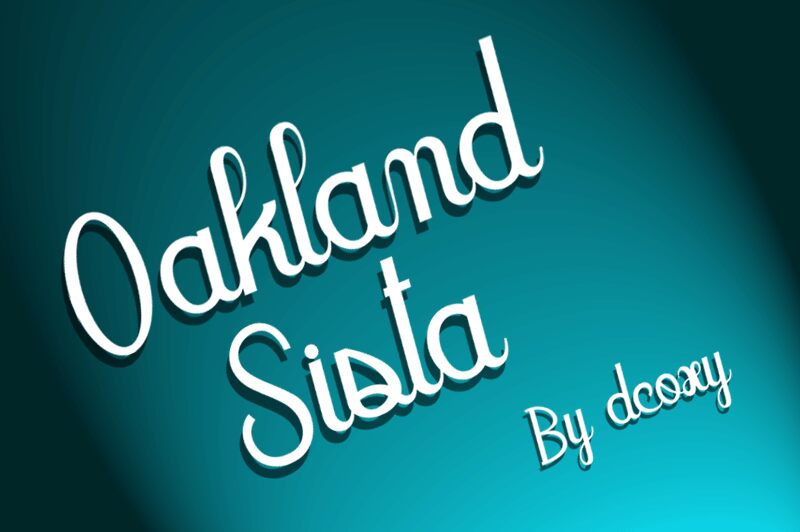
Oakland Sista
Oakland Sista is a captivating handwritten font crafted by dcoxy Medina Gregory. Inspired by the vibrant energy of Oakland, this font exudes a raw, expressive charm. Its fluid strokes and organic flourishes lend a distinctive personality, evoking a sense of warmth and individuality. Oakland Sista shines in a variety of design applications, from event invitations to creative branding, adding a touch of genuine character to any project.
Its versatility allows it to seamlessly transition between playful and sophisticated, making it a valuable asset for designers seeking to capture authentic, personal aesthetics.